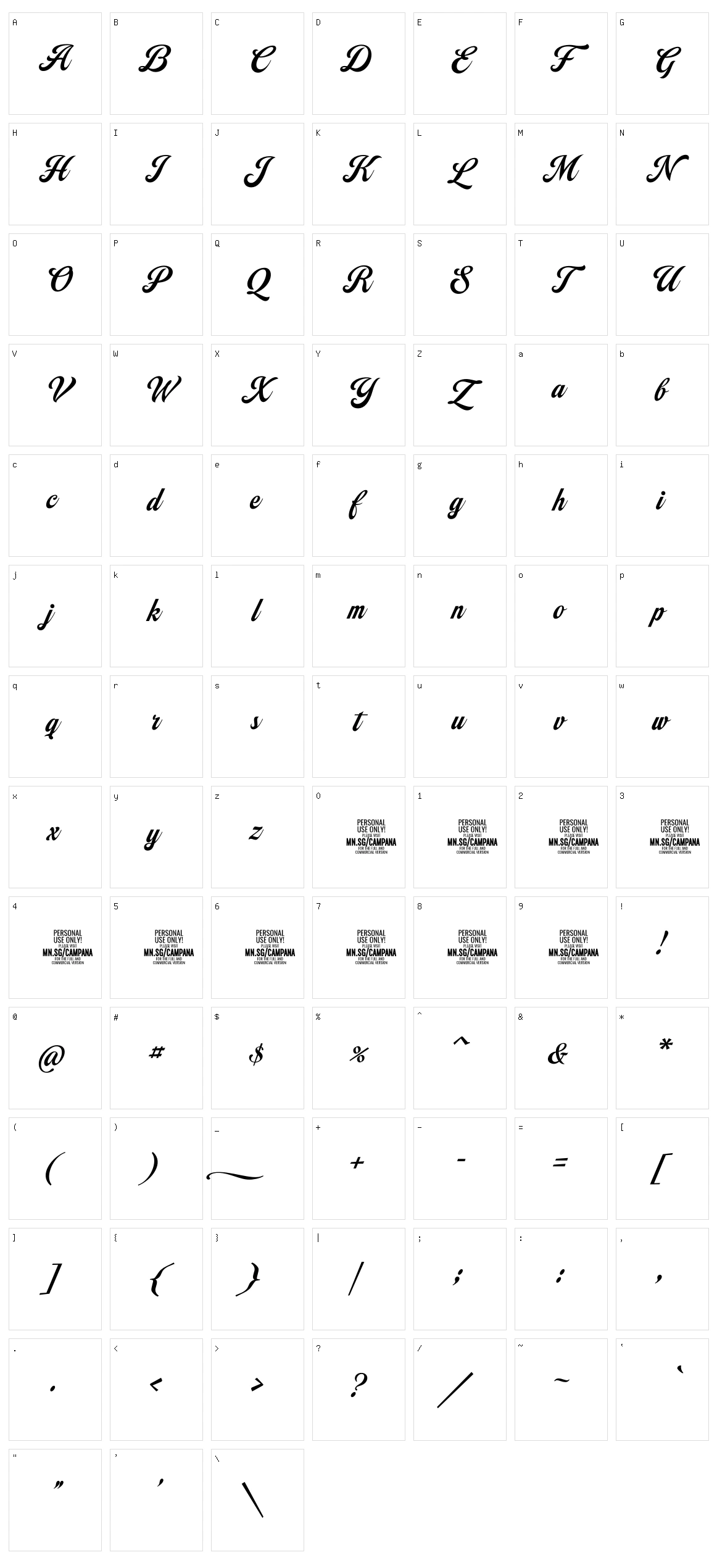
Campana Script is your go-to for classical elegance. Picture walking into an old bookstore and discovering a handwritten love letter tucked inside a dusty novel. This font brings that level of intimacy and nostalgia to your designs.
Designed with heavy lines and intricate swashes, Campana Script suits formal applications like wedding invitations, certificates, and classic logotypes.
Use underscore _ to make a swash.
Example: Deco_rative
Use multiple underscores to make different underlines.
Example: Candy__shop
Campana Script is built with advanced OpenType functionality and has a guaranteed top-notch quality, containing stylistic and contextual alternates, ligatures, and more features; all to give you full control and customizability. It has extensive lingual support, covering all Latin-based languages, and includes all the characters and symbols you'll ever need.
Behind this exquisite creation is Mans Greback. Known for pushing the boundaries of type design, Greback has ventured into the intricate intricacies of aesthetic diversity with Campana Script. His portfolio is a testament to his versatility and daring, turning simple alphabets into powerful visual narratives.